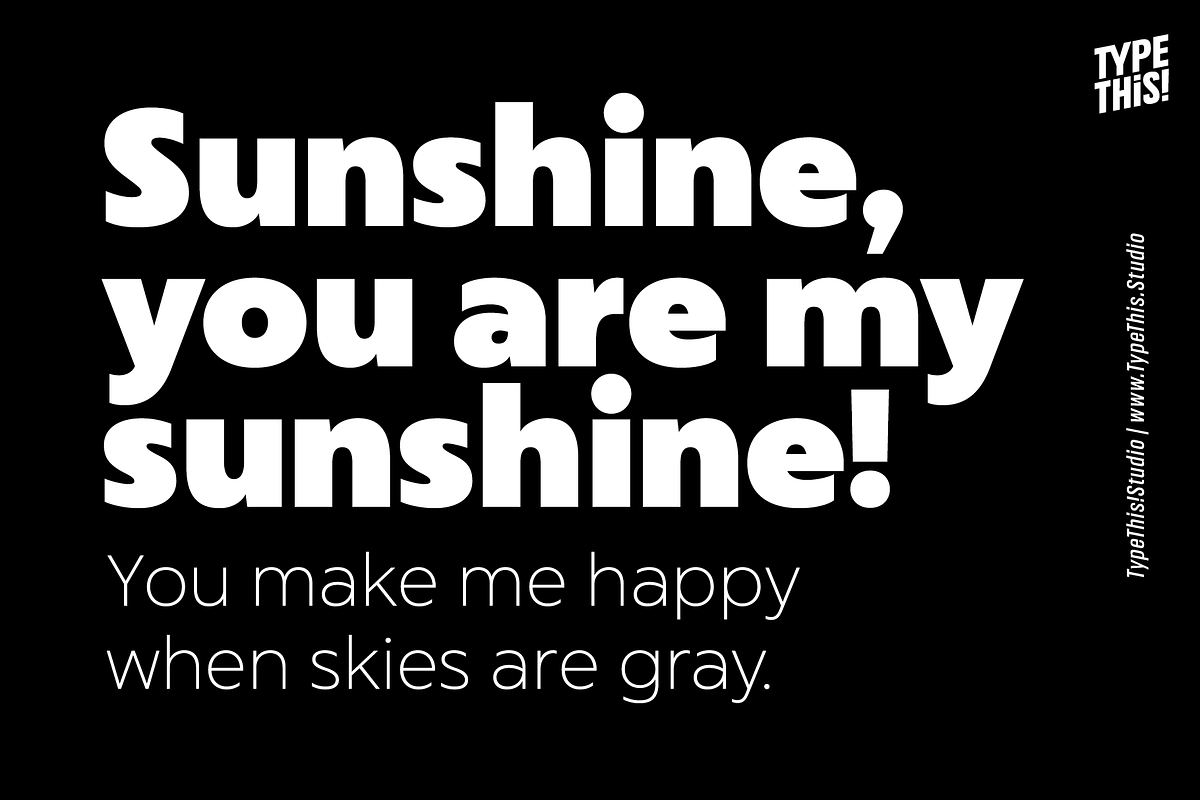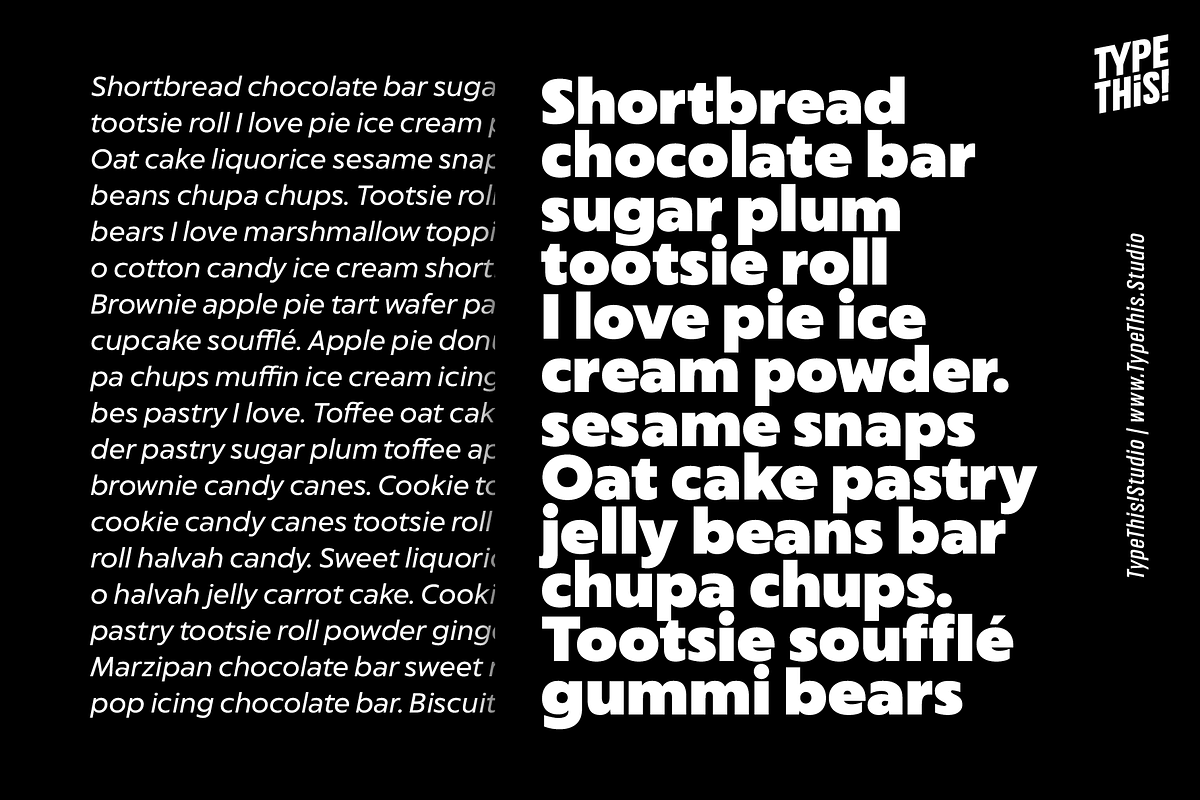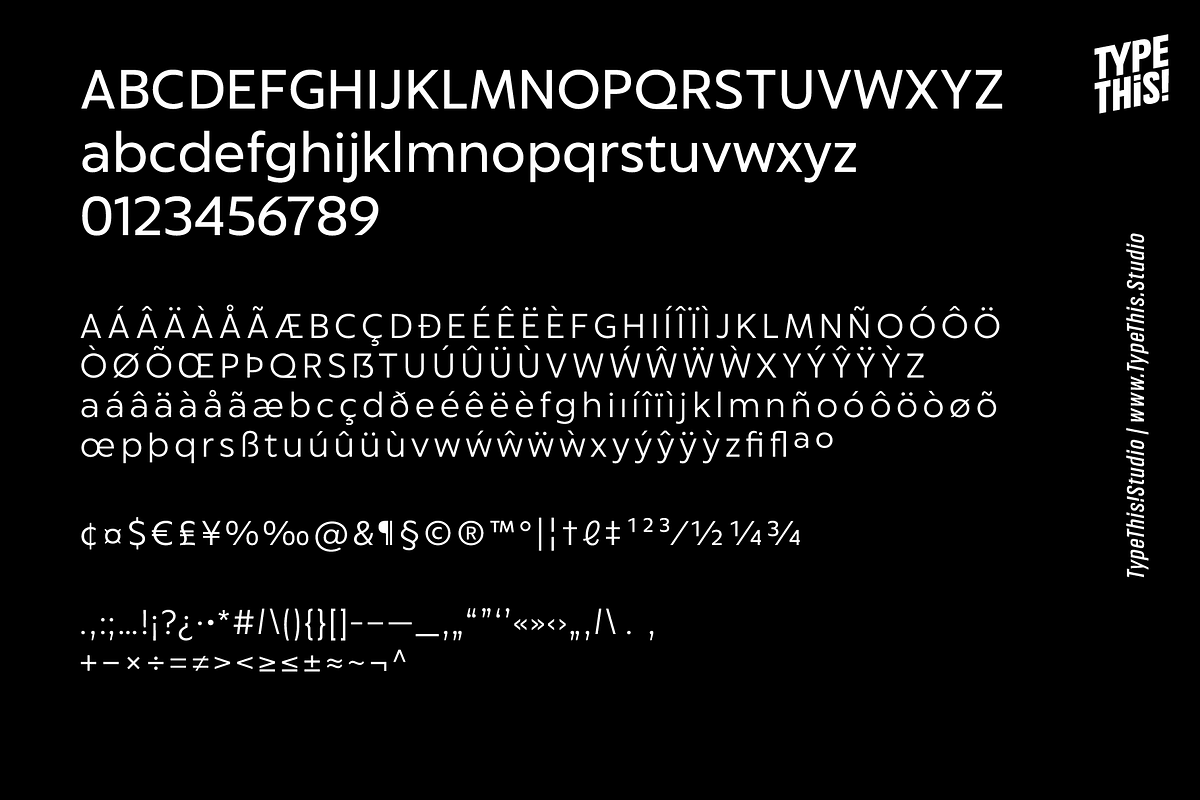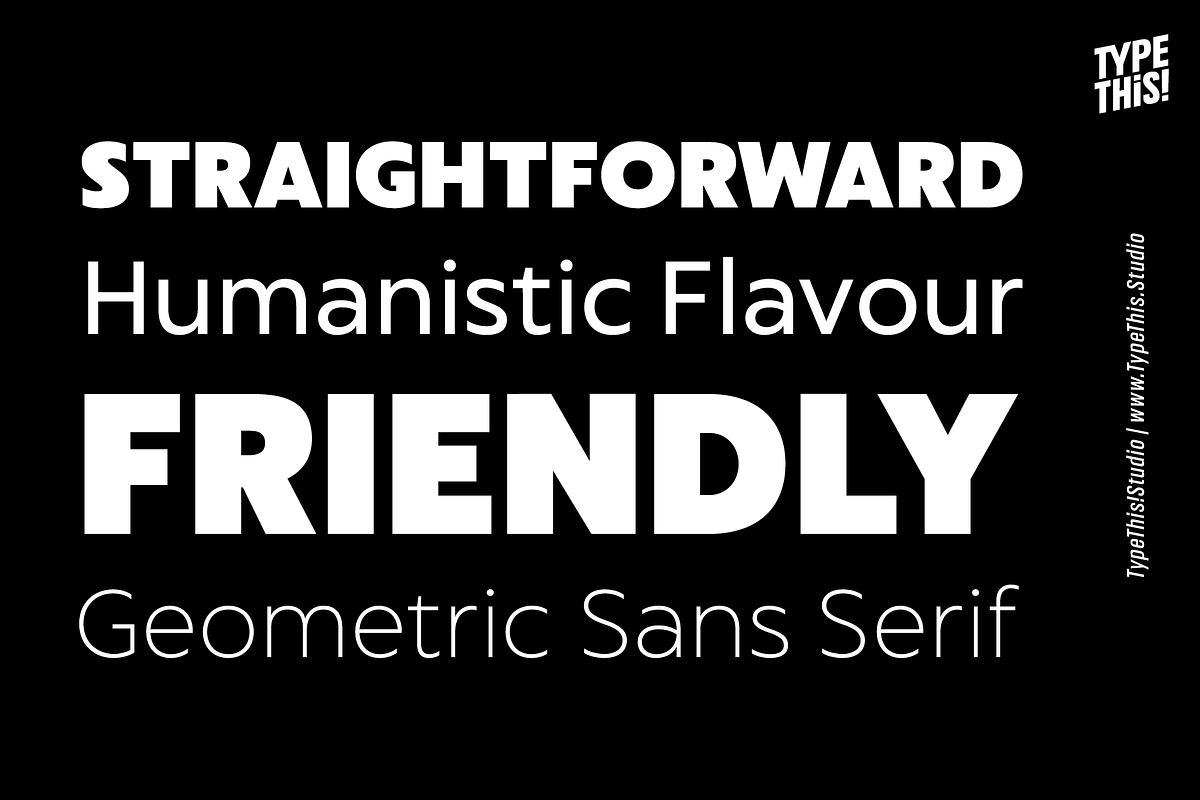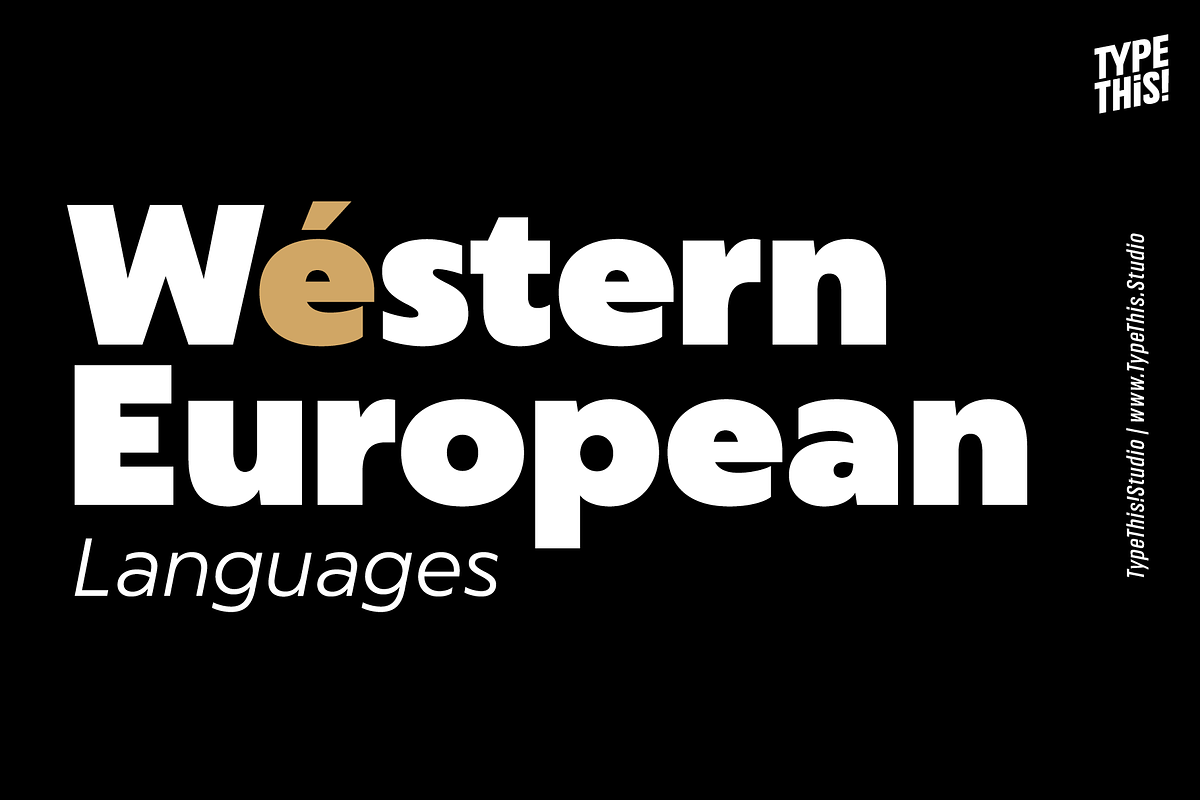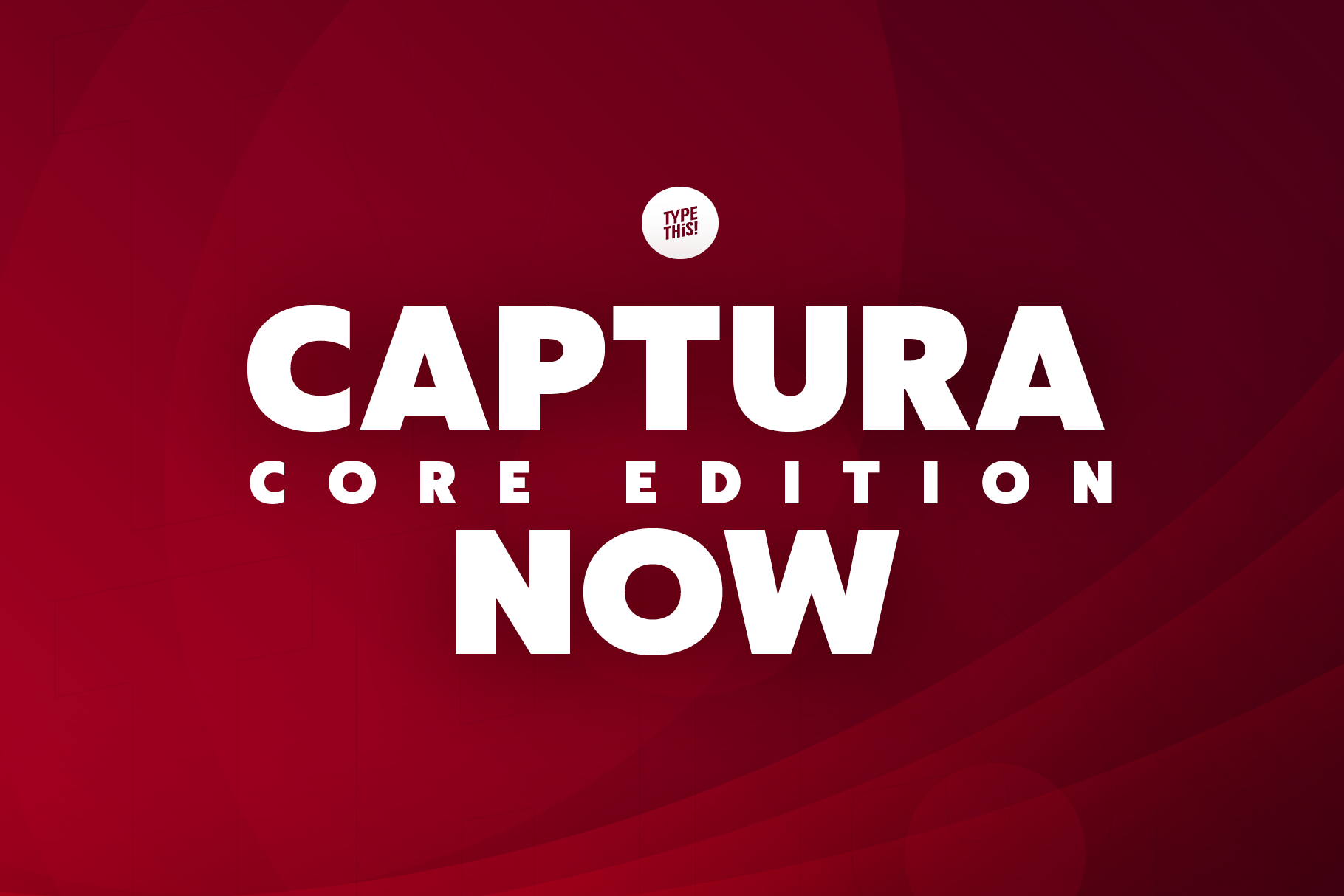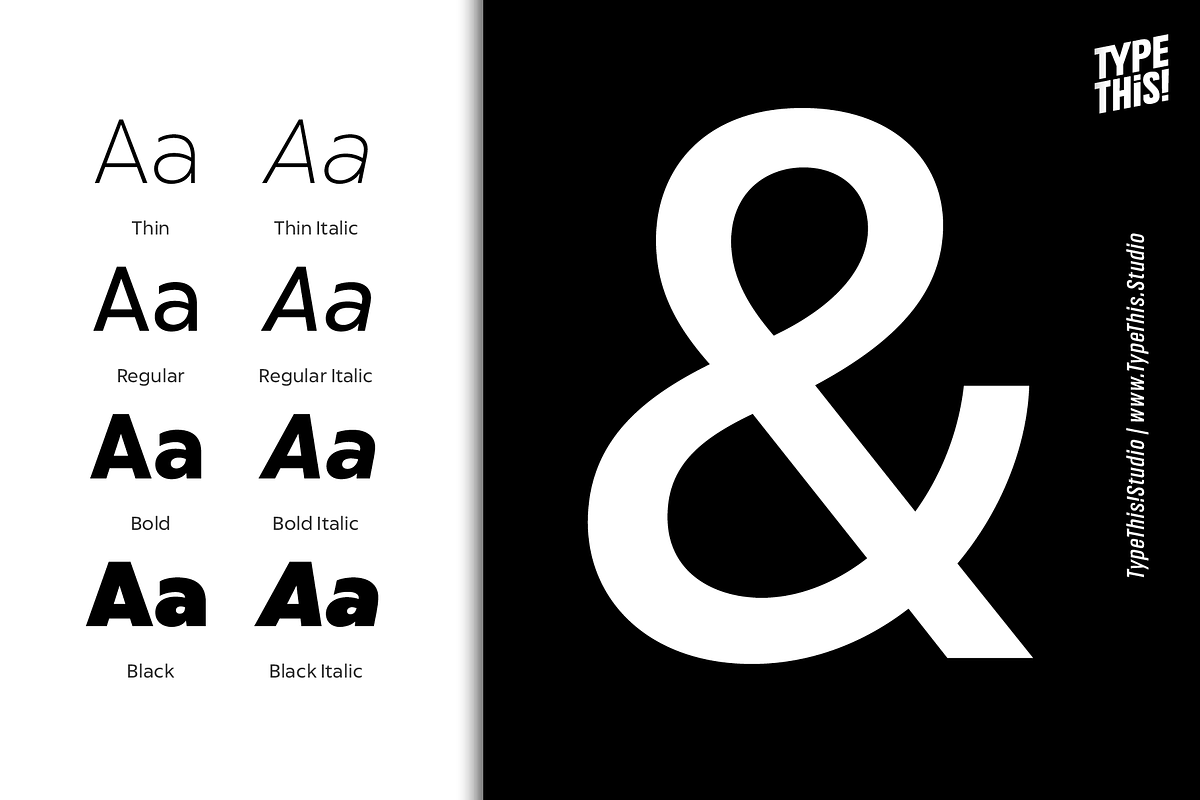
Captura Now Core Font Regular Italic
Carefully refined shapes and sensitively balanced spacing and kerning create the gentle rythm that grants Captura its warm-hearted face, perfect in form and shape.
This version covers all the essentials of Captura
- Western European Language Support